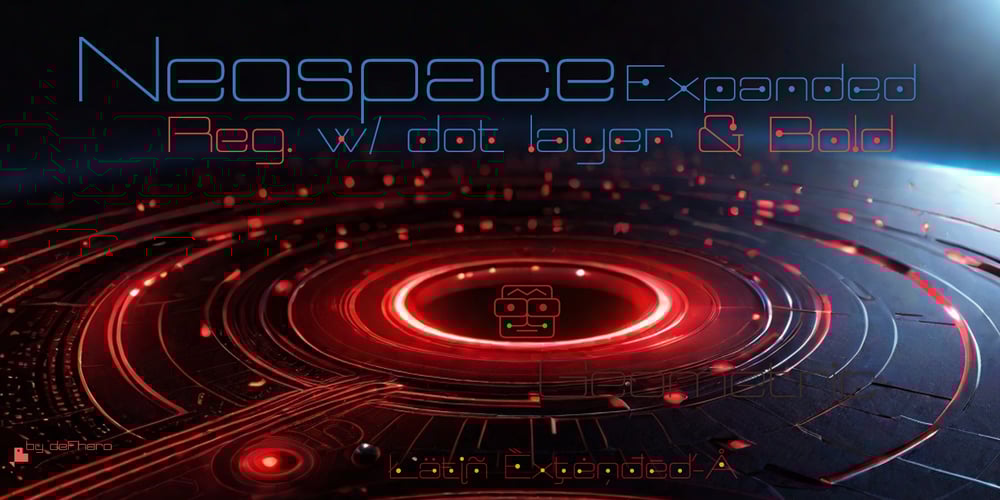
Neospace Expanded Font Family was designed by Fernando Haro and published by deFharo. Neospace Expanded contains 6 styles and family package options. Neospace Expanded is an avant-garde typeface designed for technology and science fiction lovers. With its elegant geometric minimalism, Neospace redefines typographic aesthetics with a perfect fusion between modern and futuristic.Geometric InspirationDesigned with an expanded proportion and thin thickness, it exudes its own high-tech, futuristic and space style. Each Neospace character has been sculpted from the letter “O”, using the mathematical proportions of the Fibonacci sequence in curves, metrics and kerning, adding a golden ratio to each character. This meticulous approach ensures exceptional readability and a unique aesthetic that evokes a sense of order and precision.Three styles: Regular, which provides a modern and clean look; the Dot Layer, which adds a touch of color and creativity to typographic titles; and the Bold version, which evokes the feeling of futuristic and sophisticated electronic circuits, bringing a sense of avant-garde and advanced technology to your projects.Neospace allows you to create typographic titles in various colors, imitating the sophistication of futuristic electronic circuits.Limitless VersatilityNeospace goes further by offering alternative letters and signs, multiple sets of numbers and capital letters, as well as monetary and cryptocurrency symbols. In addition, it incorporates complex OpenType functions that further enrich the design possibilities, allowing even greater customization in your typographic designs.